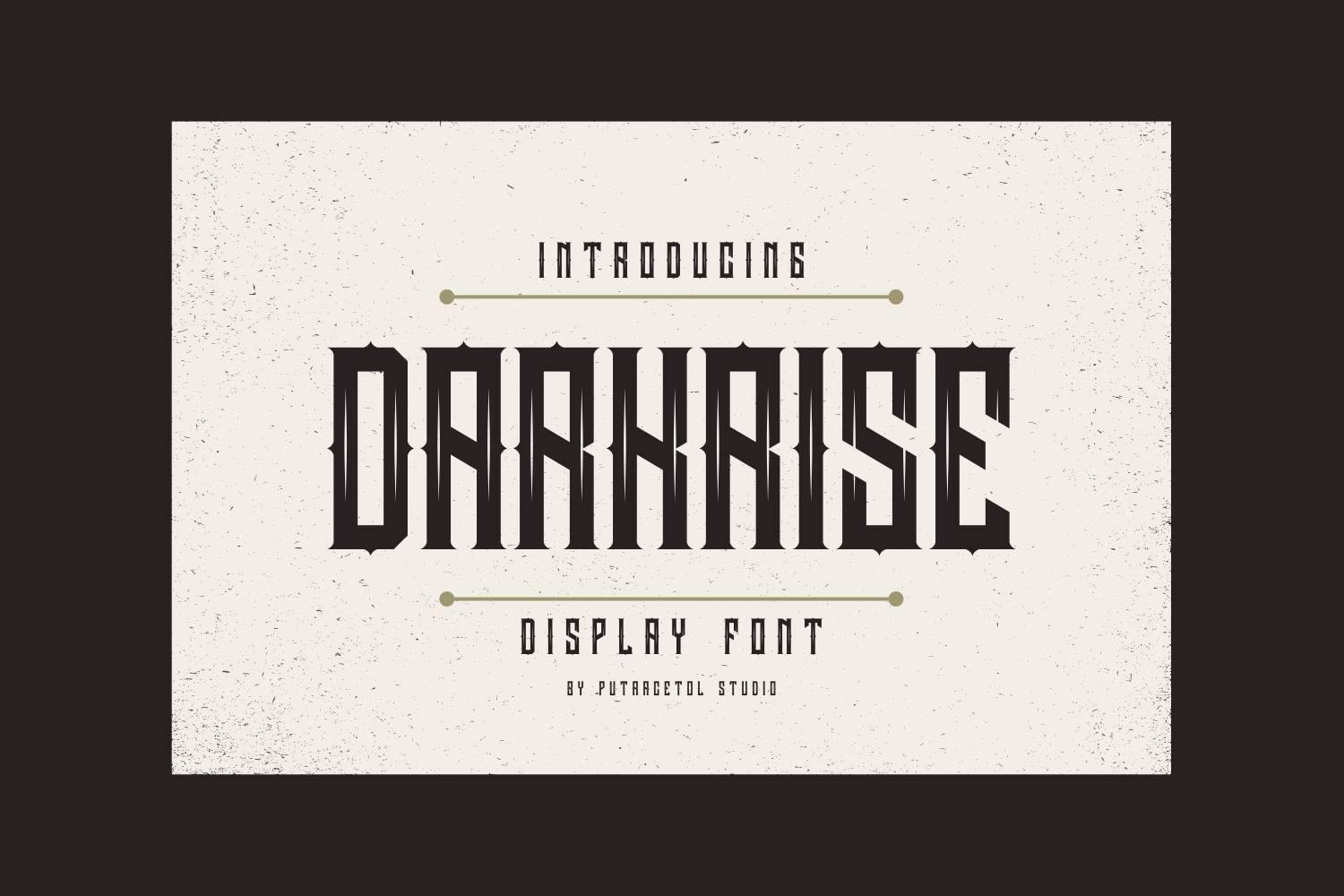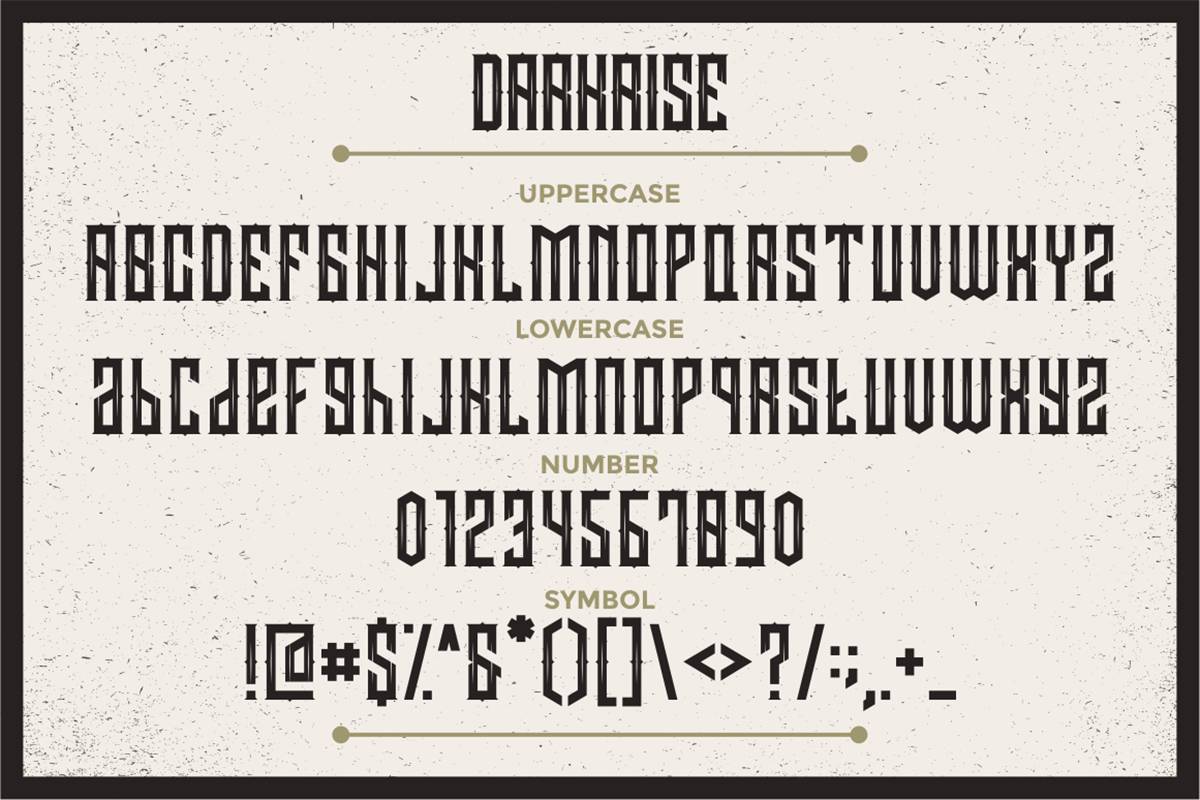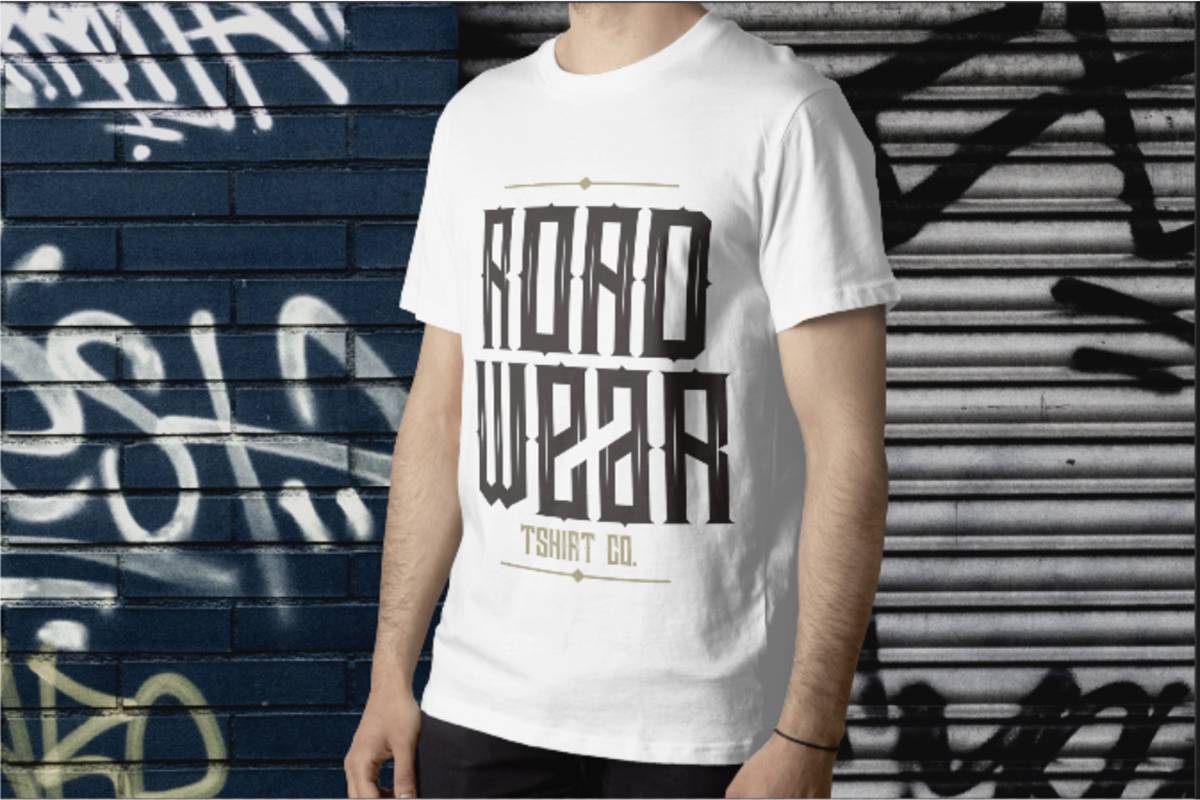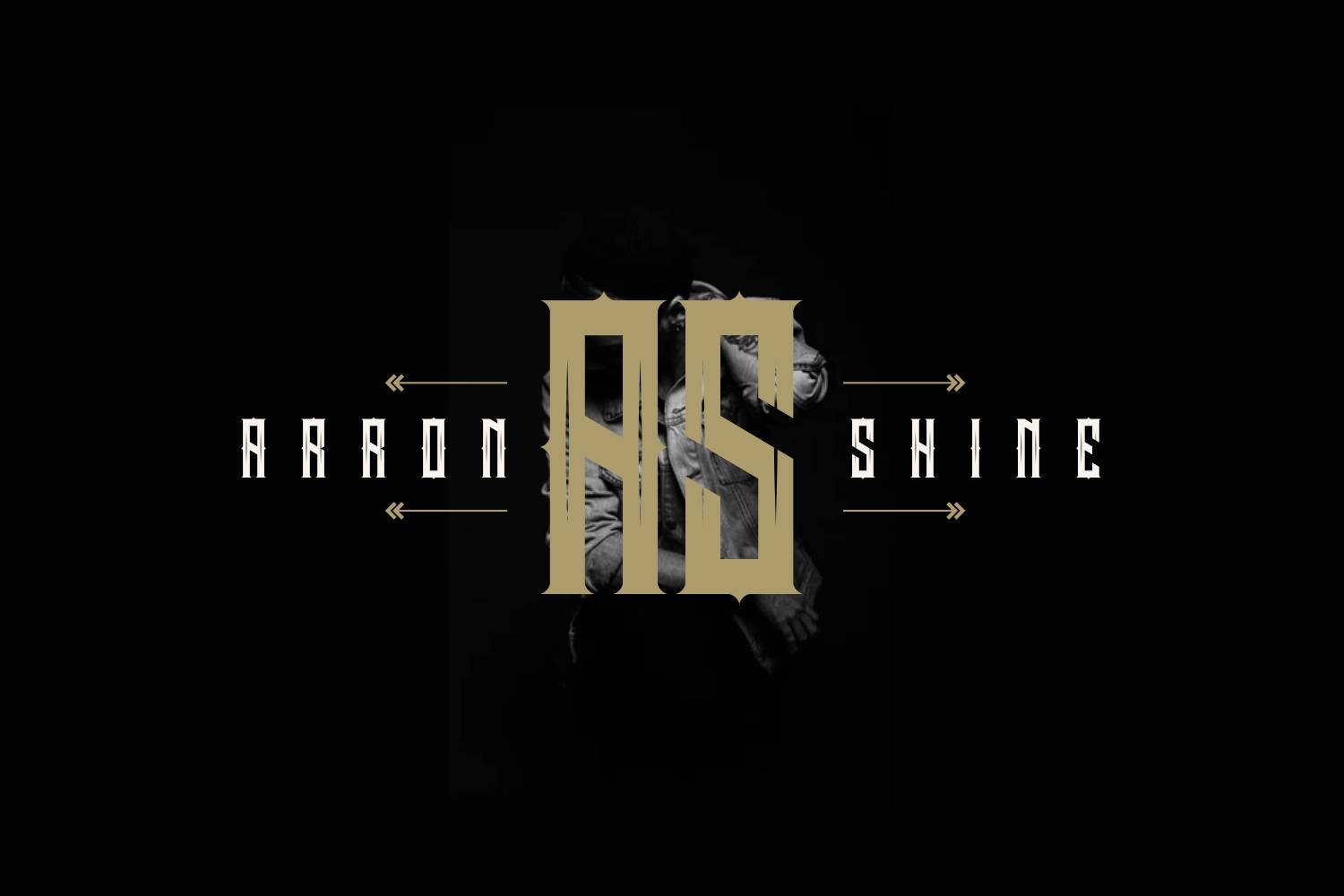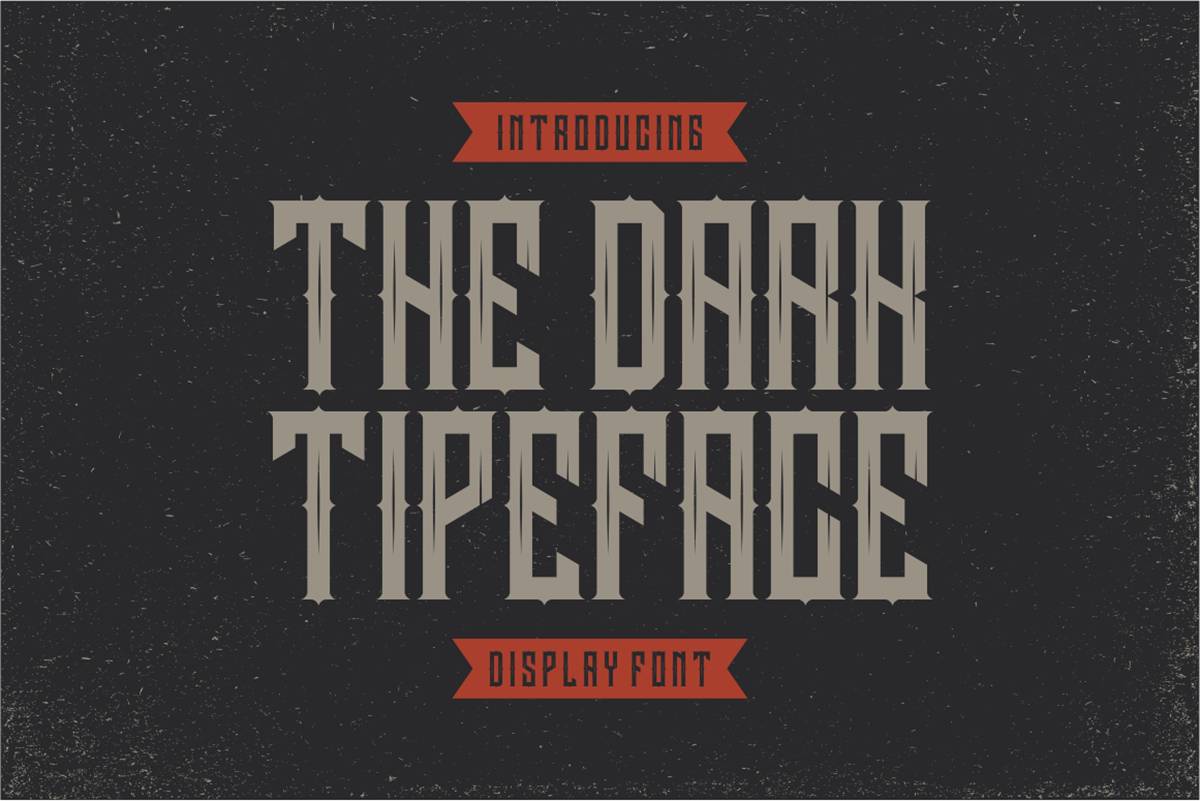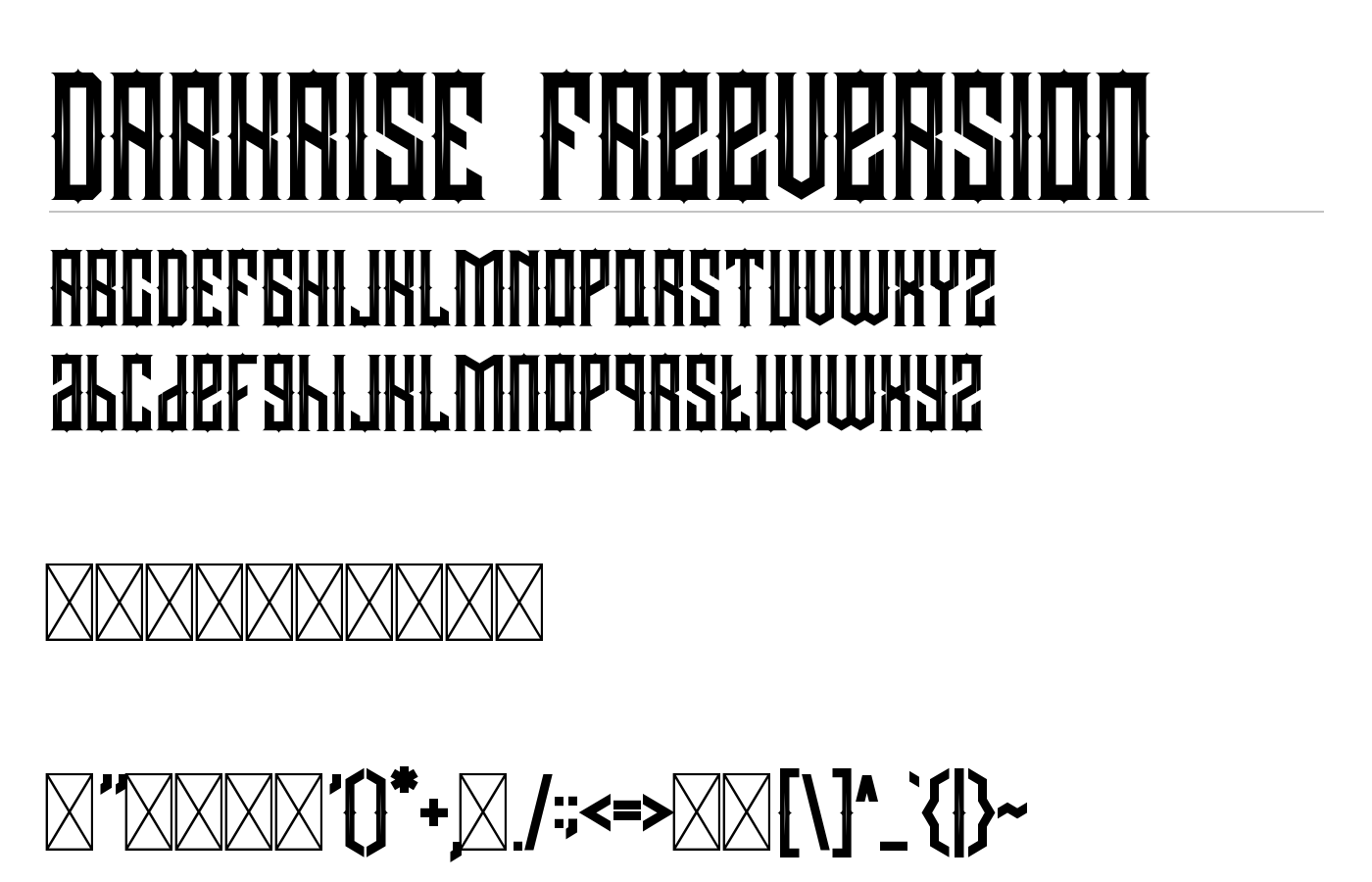
Darkrise is a striking condensed blackletter-style font with sharp, angular strokes that give it a bold and intense presence. Its tall, narrow letterforms with high contrast and unique geometric details make it ideal for dramatic headlines, logos, and branding that need a strong, gothic-inspired character. This font works especially well in creative projects seeking a vintage, mysterious, or edgy vibe.
Darkrise Font
About Darkrise Font